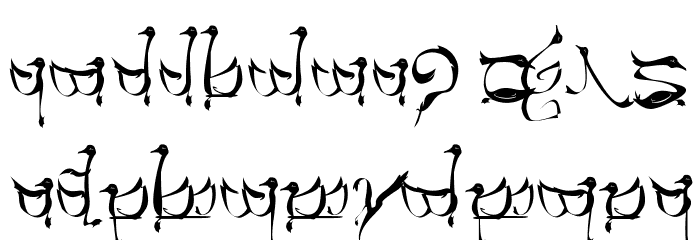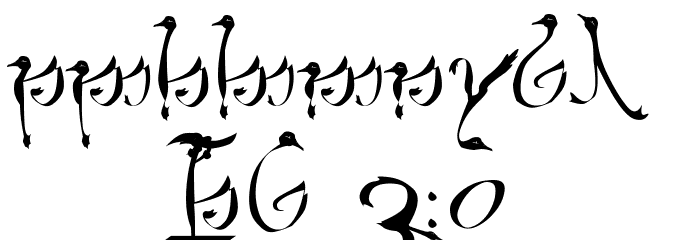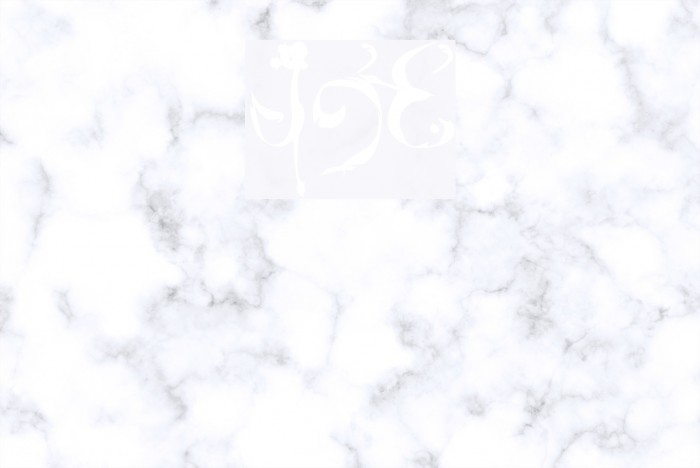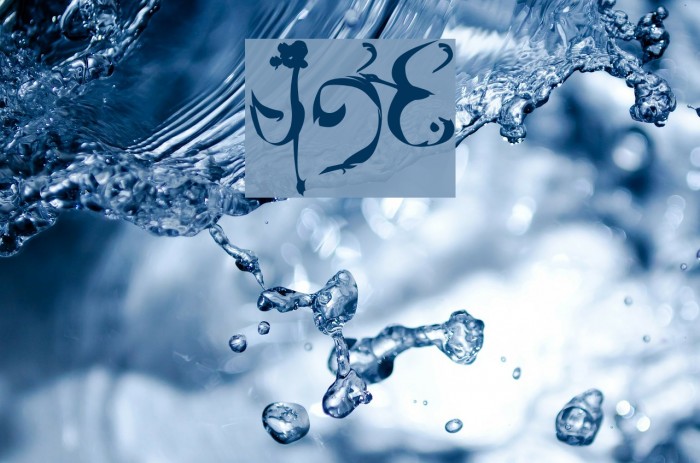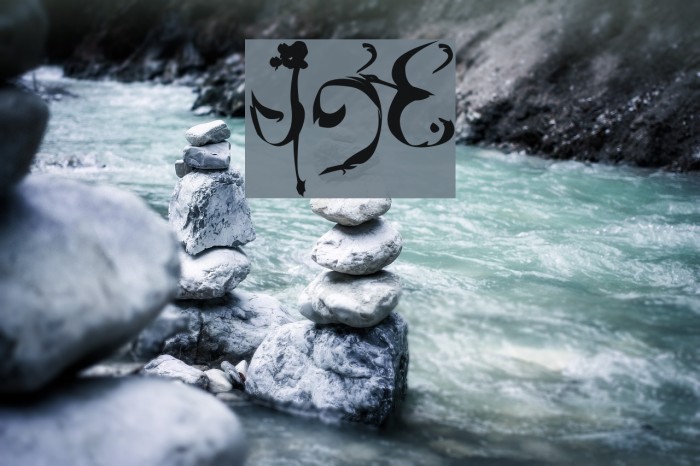
Tengwar Teleri Font
This font is a highly decorative and intricate script inspired by fantasy themes. It features elaborate, flowing lines with ornate embellishments that resemble calligraphic styles. The characters are uniquely designed with a mystical and ancient appearance, making it ideal for creative and artistic projects. The font's style evokes a sense of mystery and elegance, with each letter crafted to appear as if it belongs in a magical or mythical setting. The overall aesthetic is both captivating and sophisticated, perfect for adding a touch of fantasy to any design.
An ornate, fantasy-inspired script with intricate, flowing lines.
- Proposed Projects: Ideal for fantasy book covers, game titles, movie posters, and themed event invitations.
- Use Case: Logos, Titles, Decorative text